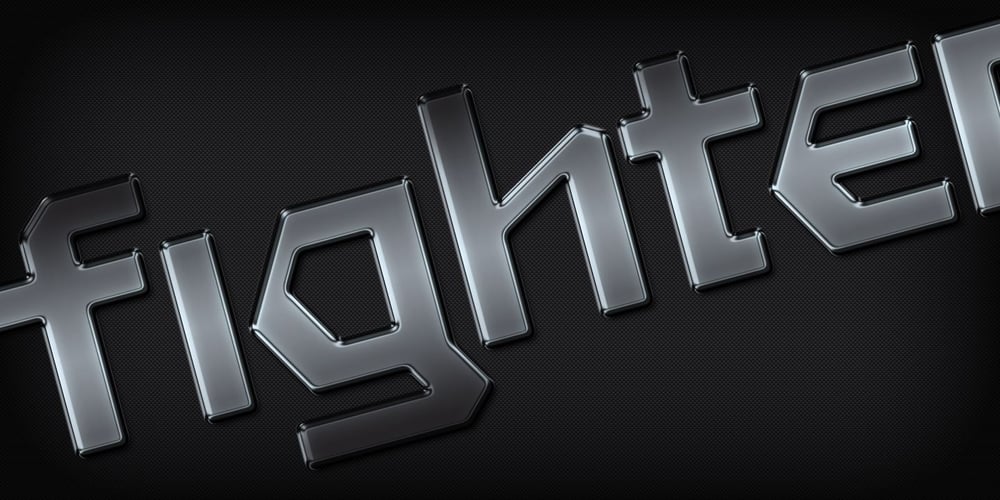
Starfighter
Starfighter font
Starfighter Font Family was designed by Gustavs Andrejs Grinbergs and published by Tilde. Starfighter contains 24 styles and family package options. This font is for gamers, game titles, for science fiction books and movies. Like hexagons fill and take space, in this font we attempted to employ hexagonal spatial typography. Sometimes it requires more rapid stroke direction change than in traditional typography. The same for Starfighter and for space quests – the competition and adventure will often require quick and sudden change of direction to succeed and survive. Have fun!